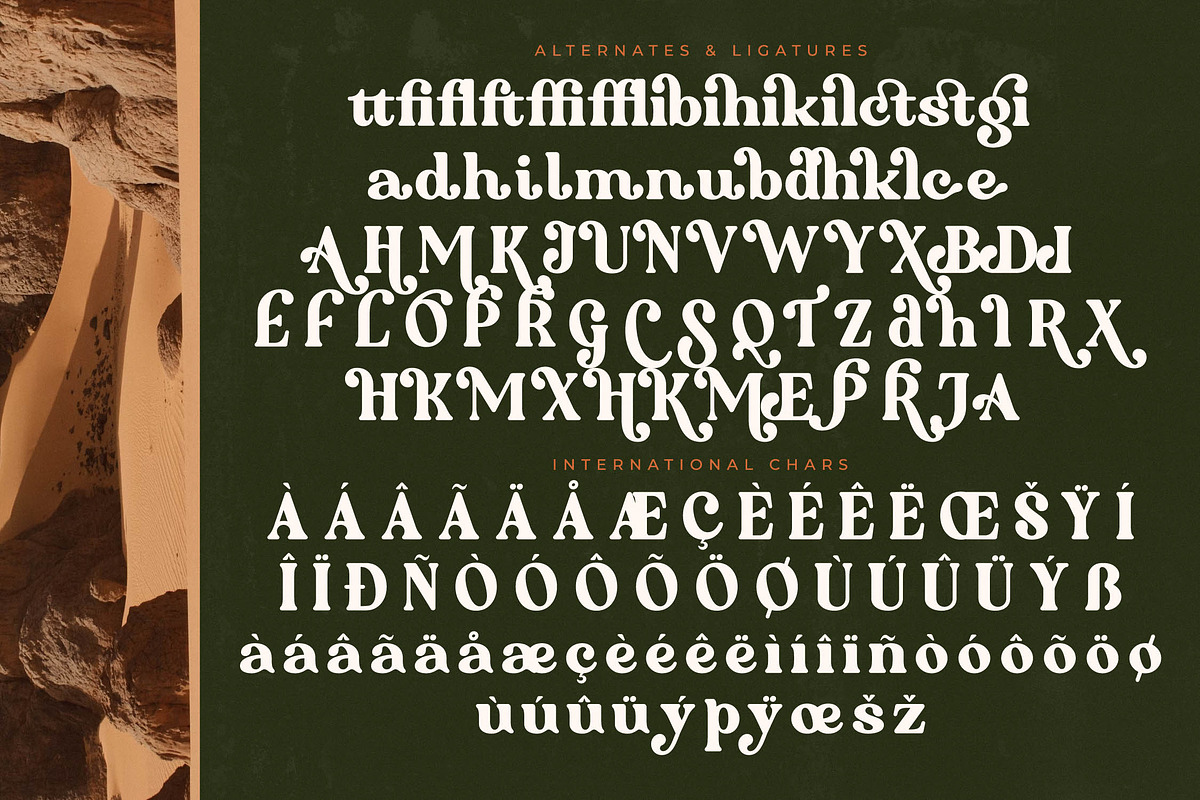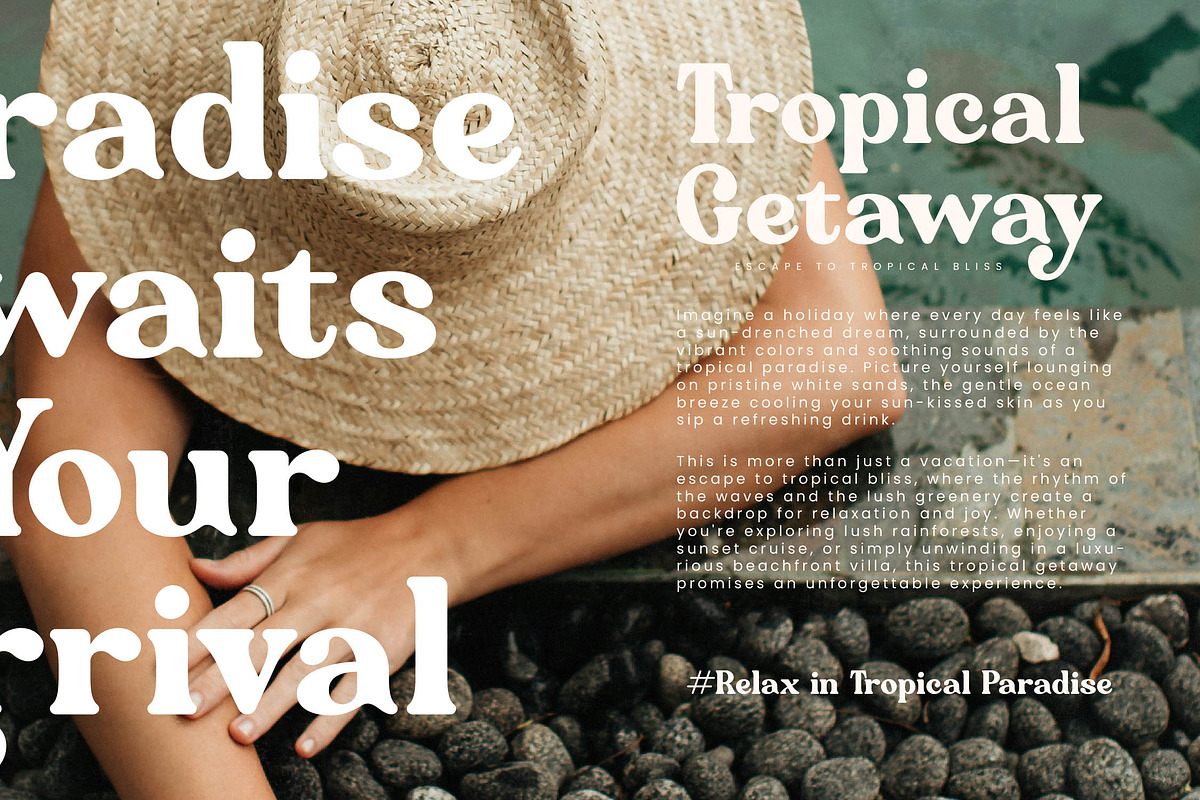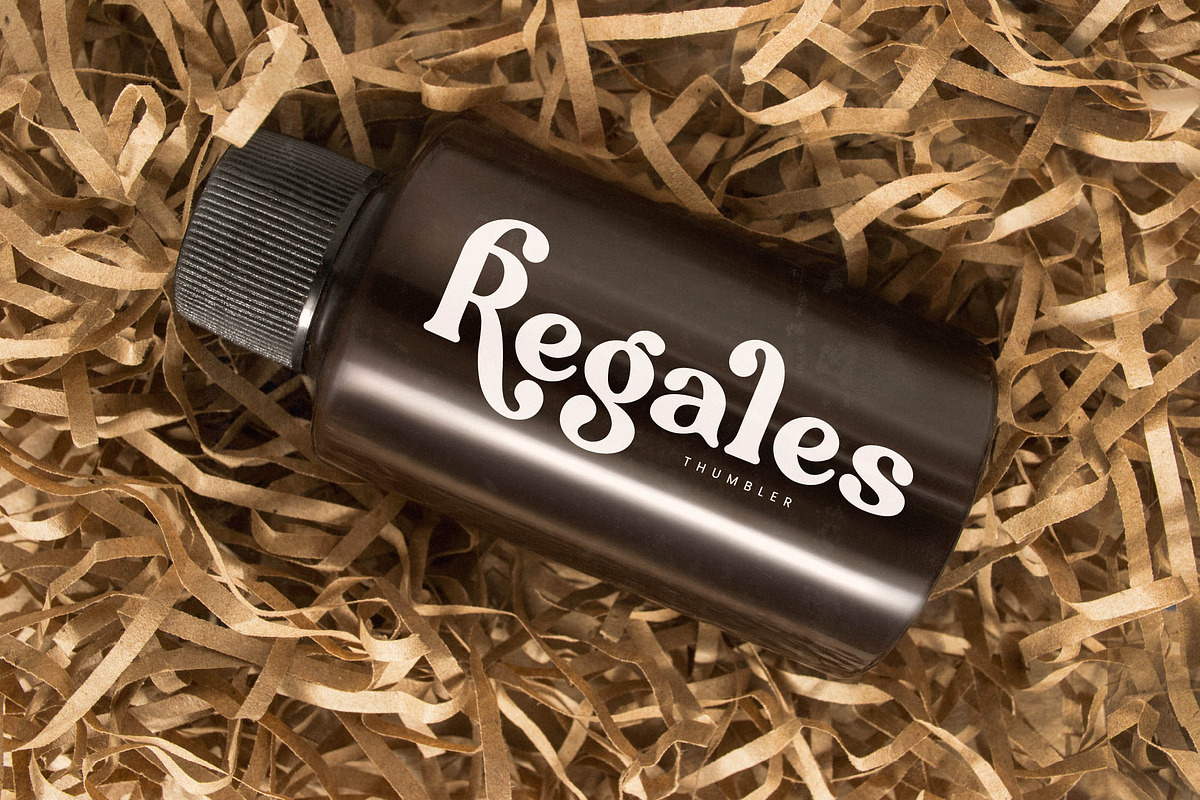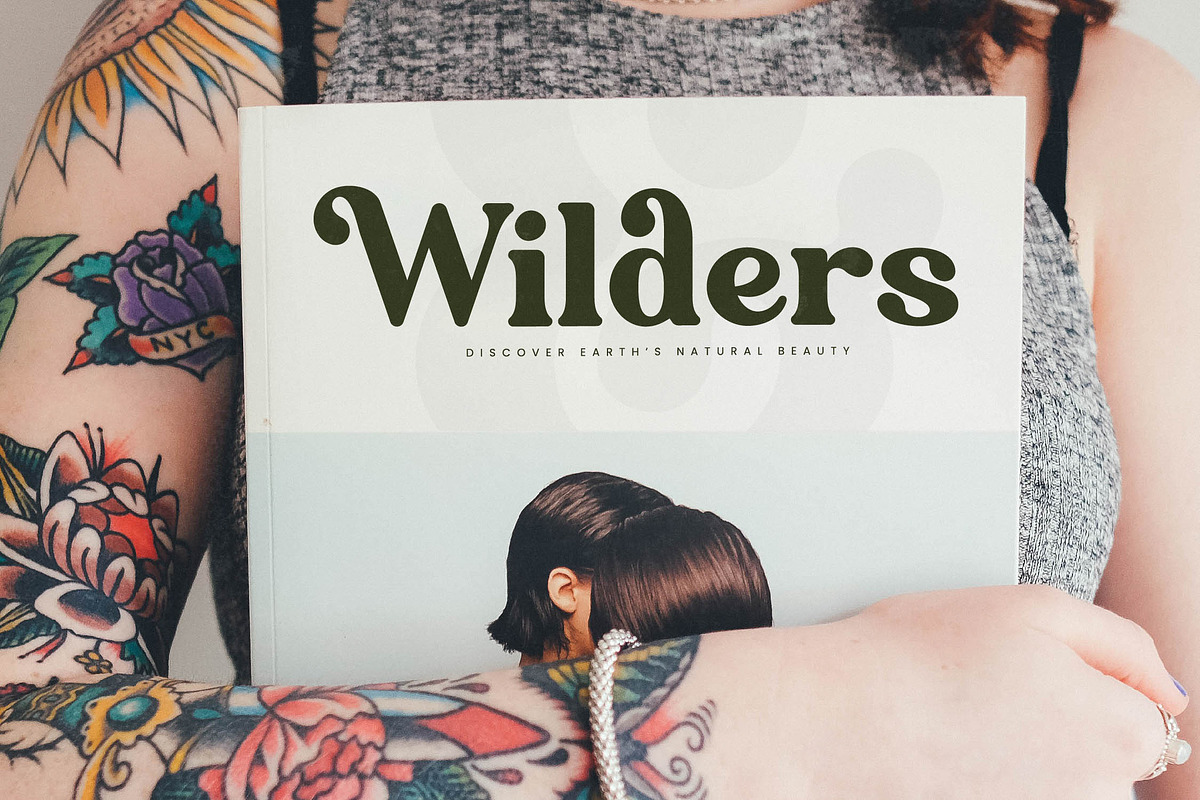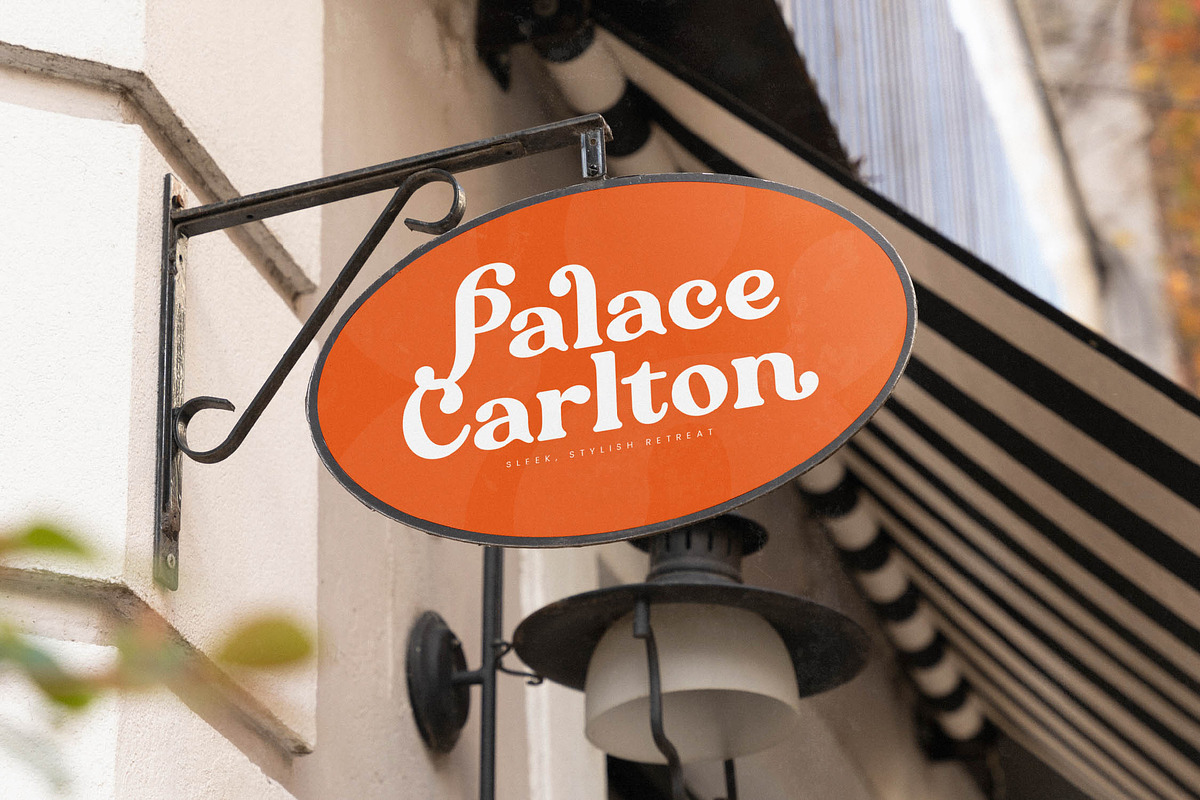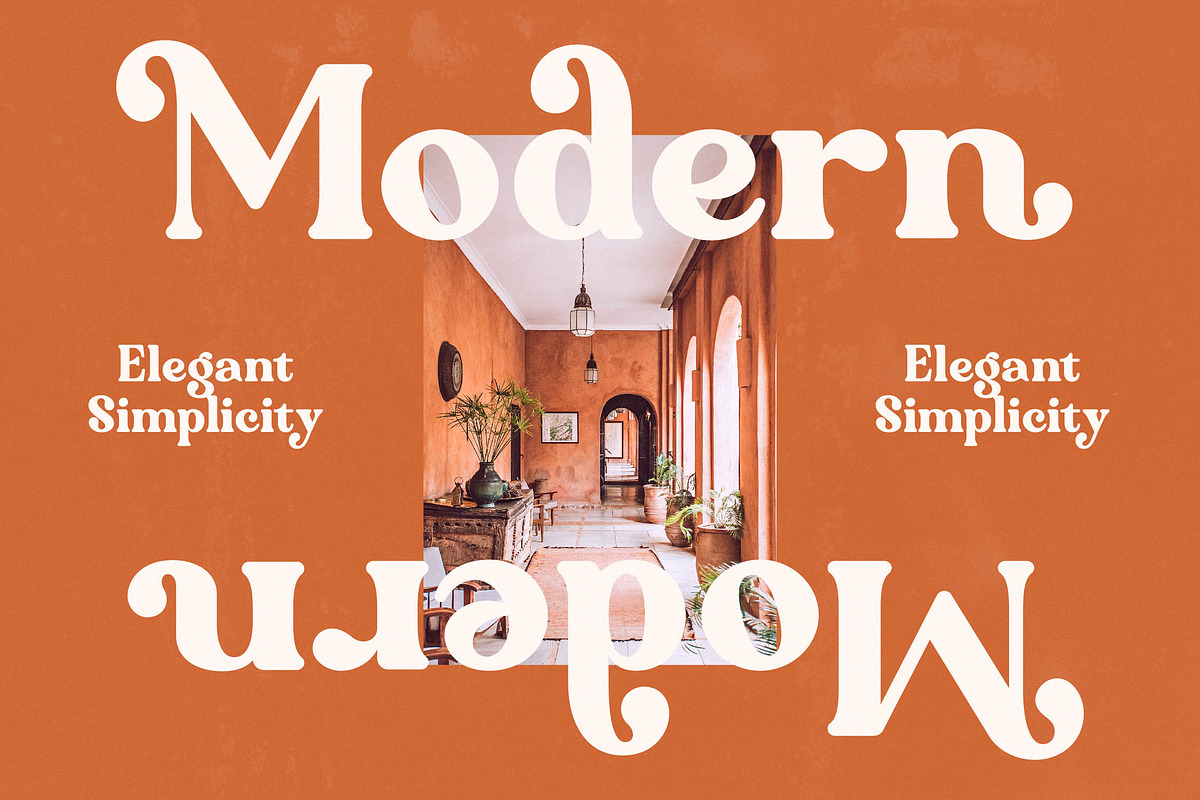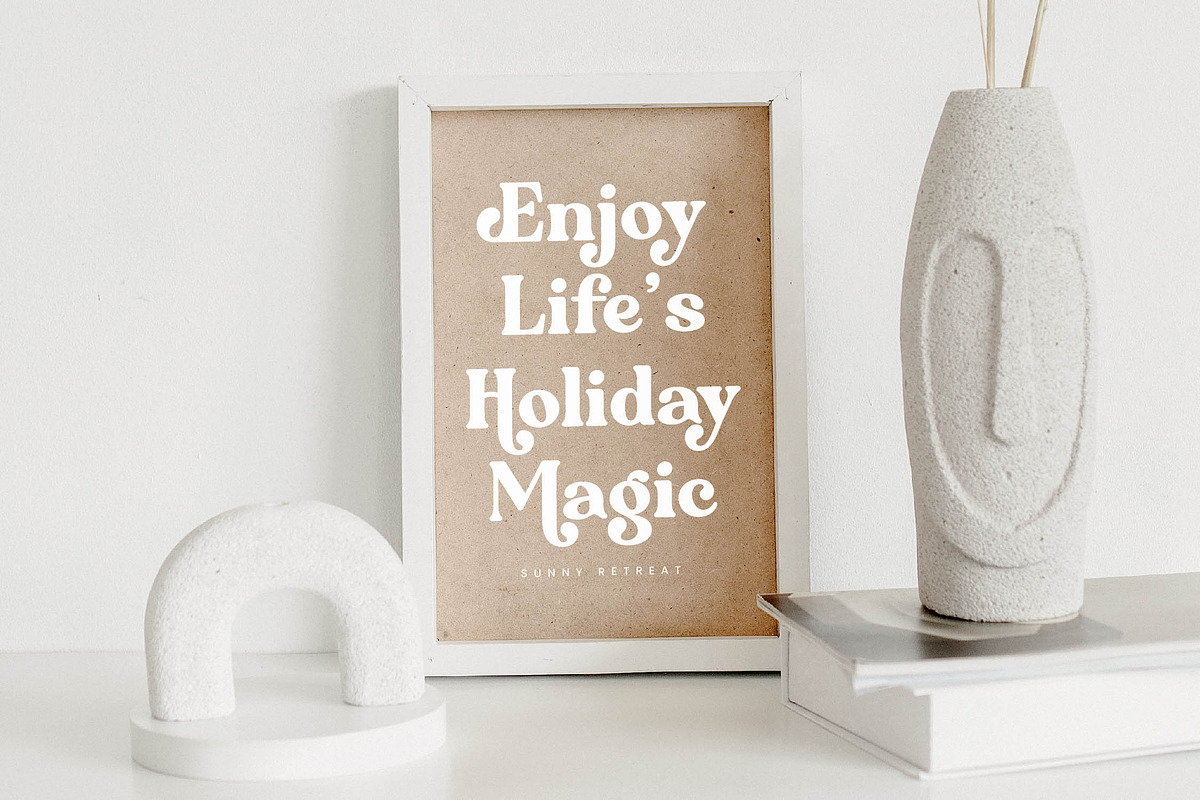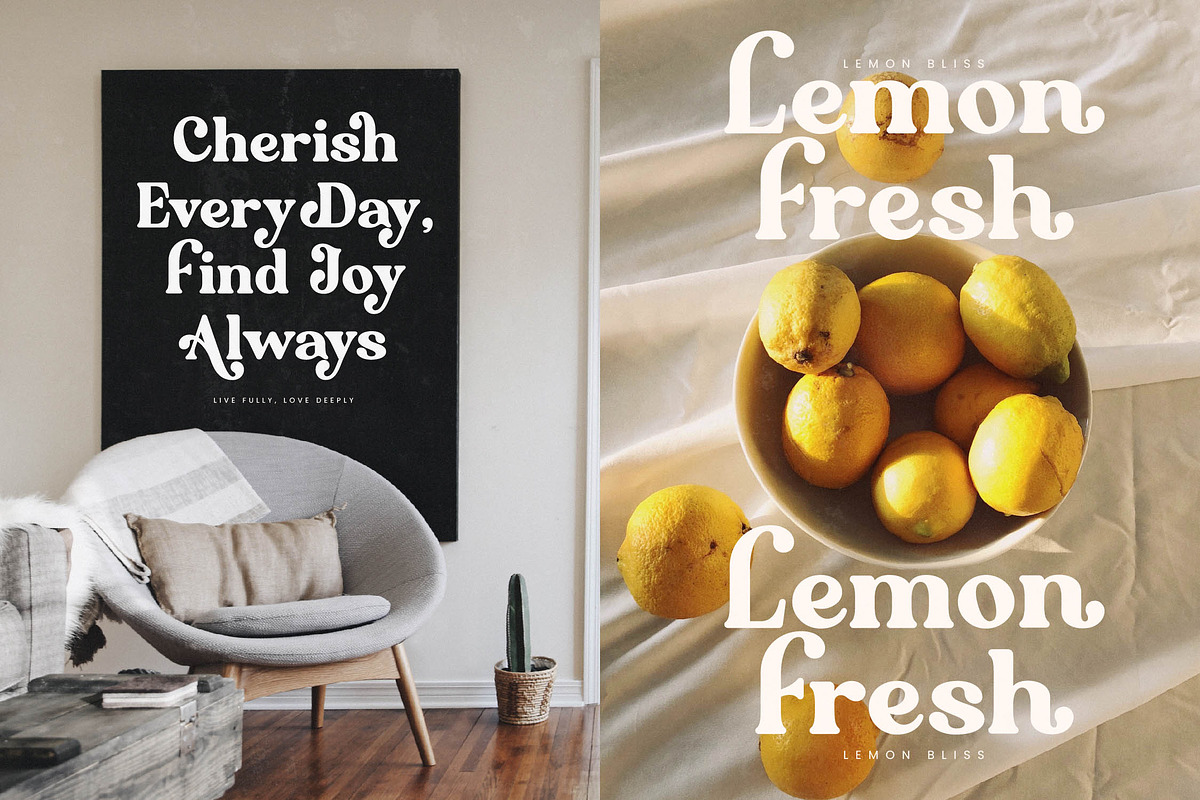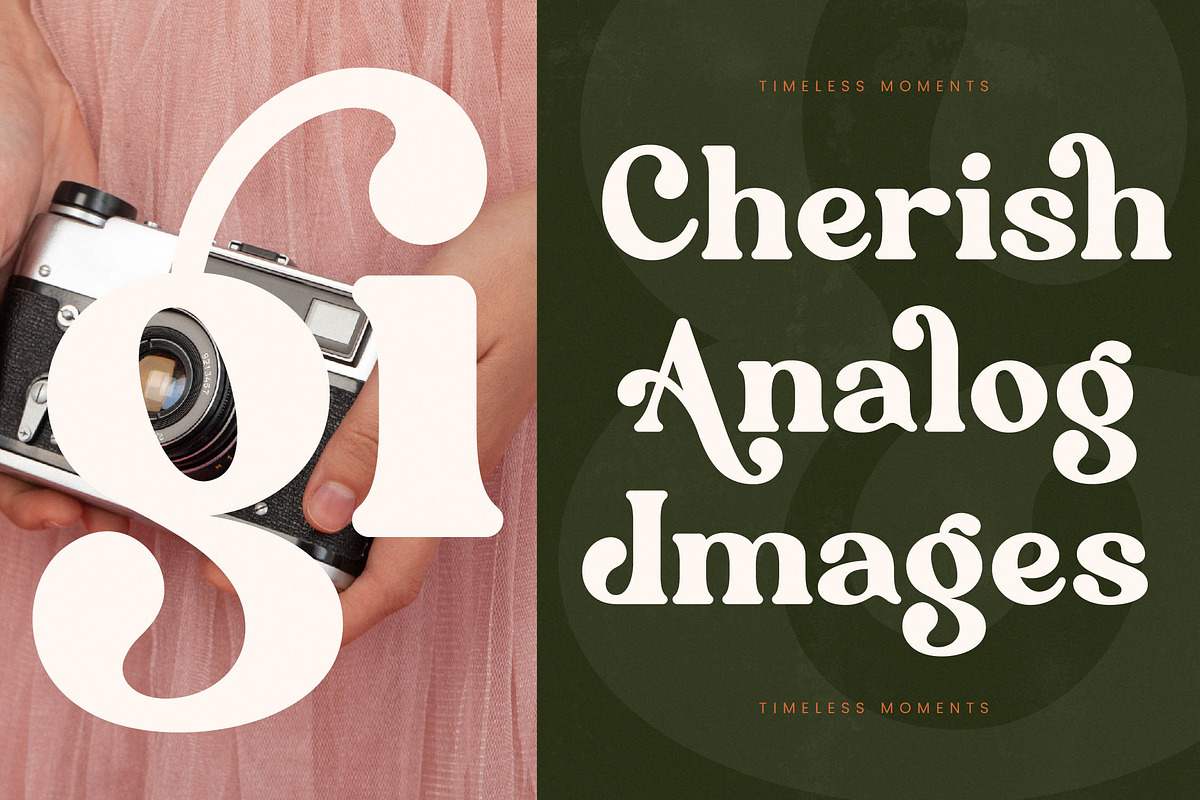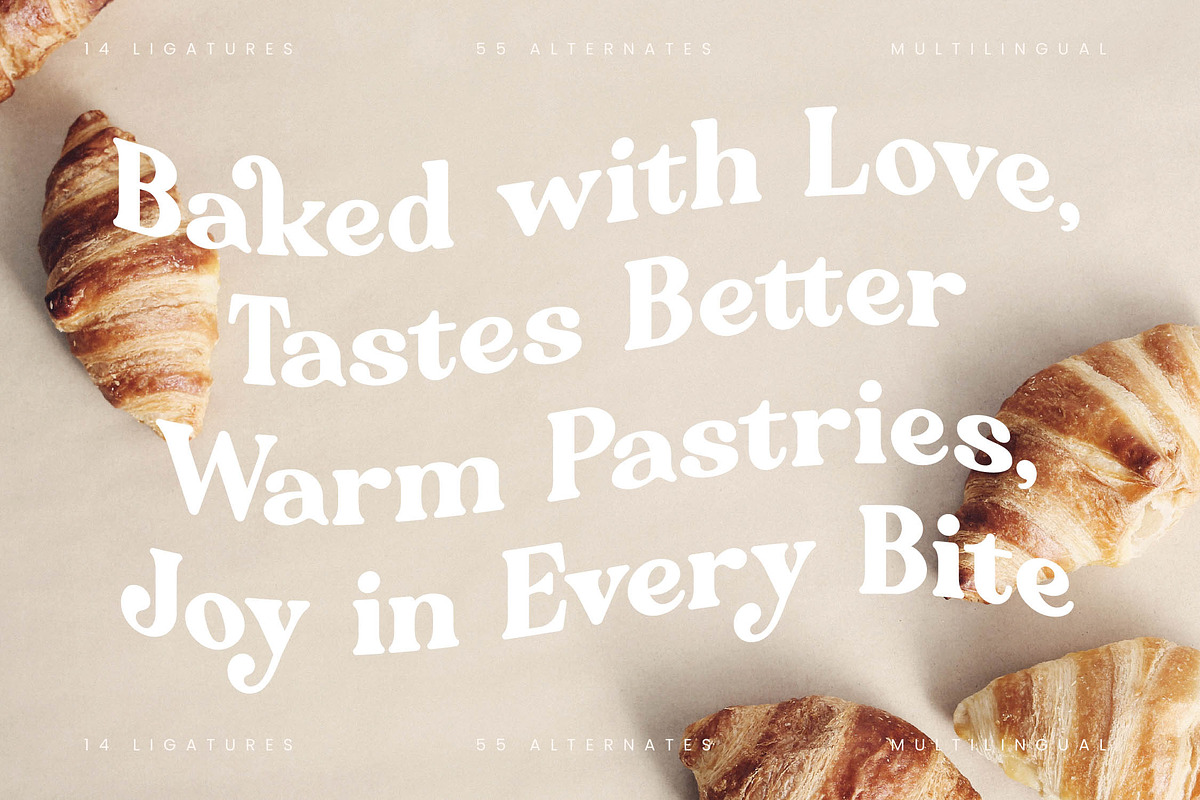
Majesty Regilast Modern Serif
Evoke the timeless elegance of Majesty Regilast, a typeface designed to command attention with its fluid curves and sophisticated presence. This font serves as a bridge between classic refinement and contemporary boldness, perfect for creators who demand a distinct visual voice.
Inspired by the sun-drenched landscapes and the organic silhouettes of natural stone formations, this typeface captures a sense of enduring beauty. Its design reflects the harmony between structured geometry and the soft, expressive lines found in high-end editorial archives.
Defined by its modern serif display style, this typeface exudes a sense of luxury typography through its high-contrast serif strokes. Every character is meticulously crafted to deliver a powerful editorial font experience that ensures your message makes a lasting branding impact.
Capturing the current modern serif trend, this typeface is an essential tool for designers seeking editorial display fonts with a unique edge. Its character-driven typography allows it to stand out in a saturated market, offering a refreshing take on vintage-inspired aesthetics.
Ideally suited for high-end logo design and comprehensive branding projects, the font provides a touch of class to editorial layouts and luxury packaging. It is equally at home in wedding stationery or fashion lookbooks, where elegance and legibility are paramount.
This professional package includes 14 custom ligatures and 55 unique alternates to expand your creative possibilities. With beautiful swashes and full multilingual support including international characters, it offers the technical depth required for global design projects.